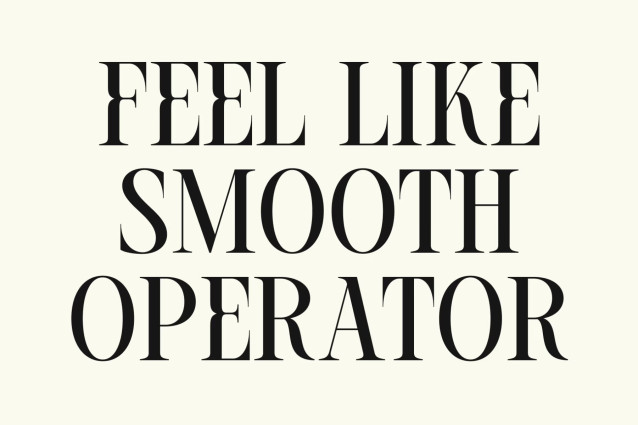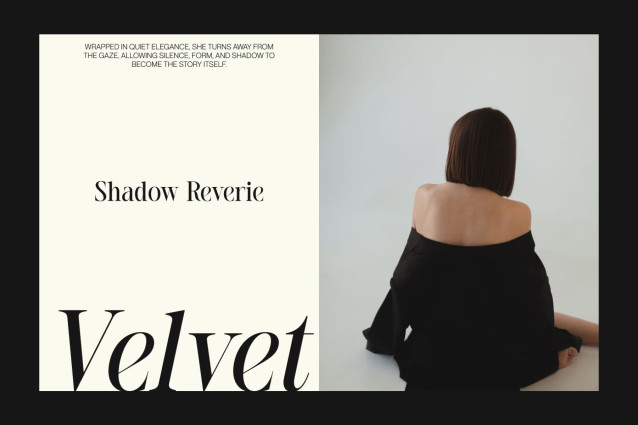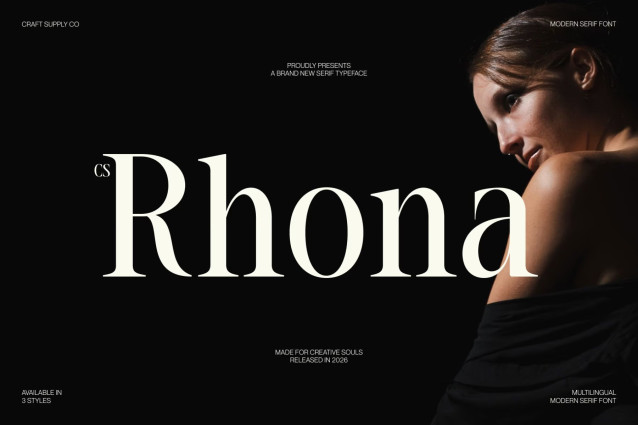
CS Rhona – Modern Serif Font
CS Rhona – Modern Serif Font: Where Editorial Grace Meets Timeless Luxury
Modern Serif Font with Elegant Sophistication
This is a modern serif font featuring elegant high-contrast strokes, refined serif details, and graceful proportions that create a luxurious and sophisticated appearance. Its beautifully balanced letterforms offer a harmonious blend of delicacy and confidence, delivering typography that feels polished, timeless, and effortlessly refined.
Premium Editorial Aesthetic with Exceptional Readability
Designed with clean, carefully crafted letterforms, this font maintains excellent readability while expressing the elegance of premium editorial typography. Its refined structure and balanced contrast create a sophisticated visual rhythm, making it equally effective for striking headlines and elegant brand communication.